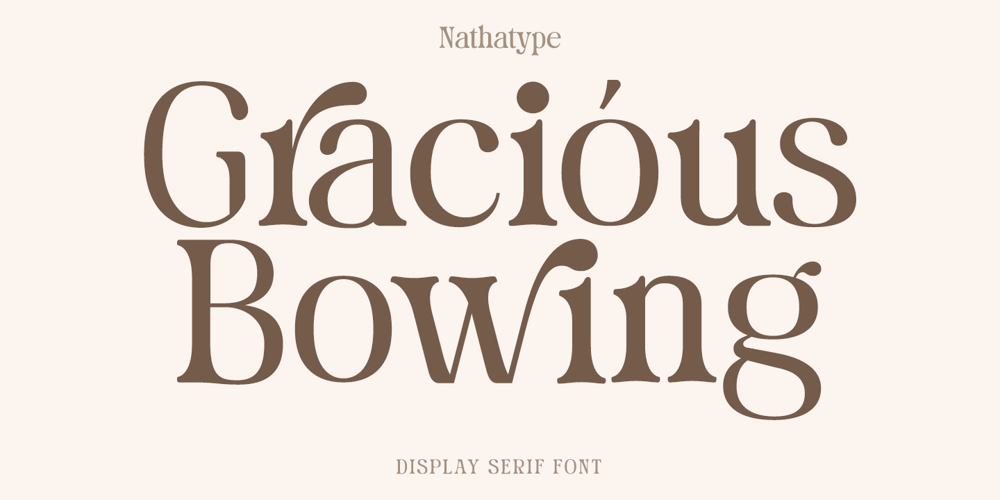
Gracious Bowing Font Family was designed by Donis Miftahudin and published by Nathatype. Gracious Bowing contains 1 styles and family package options. Gracious Bowing is a meticulously designed display serif font to meet your design needs. It expresses formal yet simple nuances in modern, elegant designs. Its main characteristic is the consistent geometry, proportion, and line thickness on each letter to be legible. For this reason, you can use this font for any text sizes. In addition, you can improve your designs with the available features.Features: Stylistic Sets Ligatures Multilingual Supports PUA Encoded Numerals and Punctuations Gracious Bowing fits for various design projects, such as posters, banners, logos, magazine covers, quotes, headings, printed products, invitations, merchandise, social media, etc. Find out more ways to use this font by taking a look at the font preview.Thanks for purchasing our fonts. Hopefully, you have a great experience using our font. Feel free to contact us for further information when you have a problem using the font. Thank you. Happy designing.